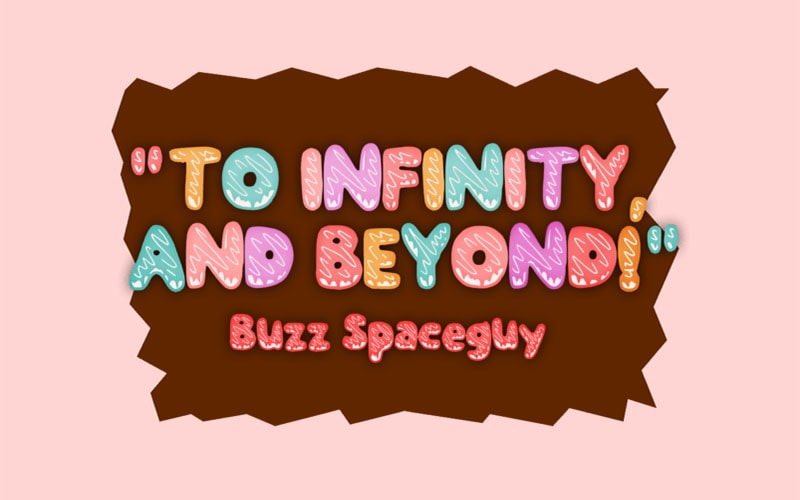
Vintage Donut Font is a delightful typeface that perfectly encapsulates the charm of retro design with a fun, modern twist. This font brings to mind the classic aesthetic of old-school diners and bakeries.
Crafted by the talented designer Laura Worthington, this font combines whimsy with a touch of nostalgia, making it an excellent choice for designers looking to add a playful and vintage feel to their work.
Laura Worthington, a renowned typographer known for her elegant and expressive fonts, is the creative genius behind Vintage Donut Font.
Worthington’s work often reflects a deep appreciation for vintage design elements, which she skillfully combines with contemporary sensibilities to create unique and versatile typefaces.
Vintage Donut Font
Vintage Donut Font is available in a single, highly stylized form that emphasizes rounded, bubbly letterforms with a retro flair. This makes it particularly suitable for Food and Beverage Branding, Packaging Design, and many more.
Perfect for packaging products like snacks, candies, and baked goods, adding a vintage charm to the items. Adds a unique, nostalgic touch to websites and digital content, making them stand out with a distinctive style.
Bring a touch of sweet nostalgia to your design projects with Vintage Donut Font. Embrace the playful spirit of Vintage Donut Font and transform your projects into a visual treat that everyone will love!